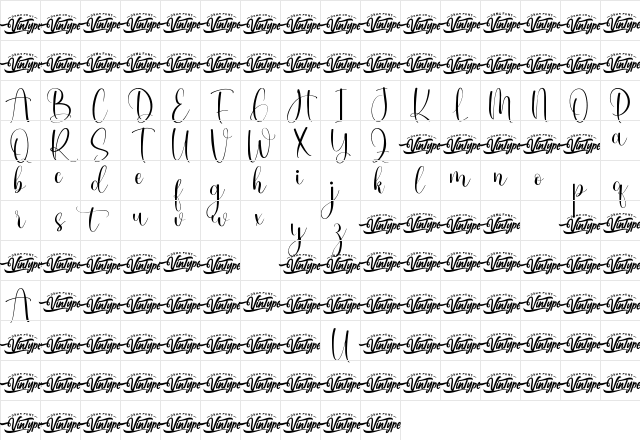
Smalljelly Demo Script Regular Free Font
Smalljelly Demo Script Regular
Foundry: VinType Studio
Designer: Widiyanti & Sarah SP
Design Context for Smalljelly Demo Script
Smalljelly Demo Script flows with the natural rhythm of handwritten lettering, making it ideal for designs that call for warmth and personal expression.
Font Pairing: Combine Smalljelly Demo Script with a simple geometric sans for maximum contrast - the tension between flowing curves and clean structure is a classic typographic pairing.